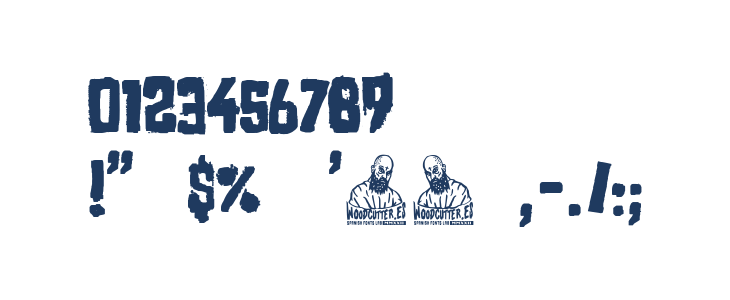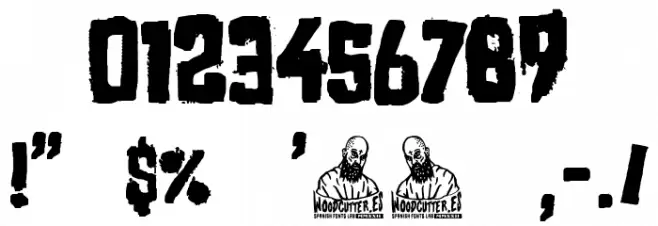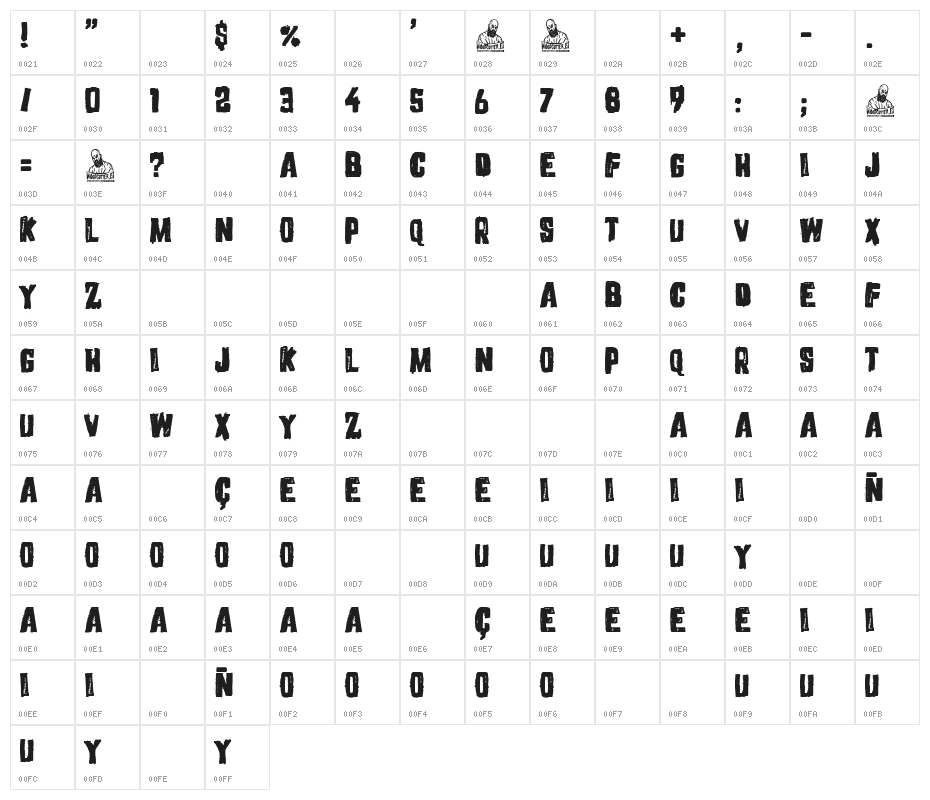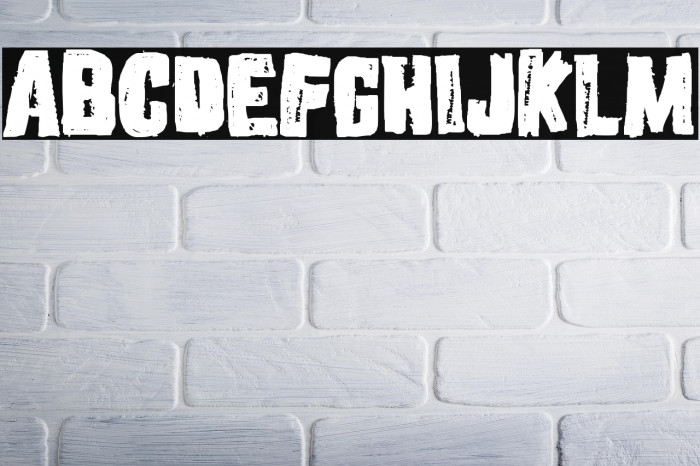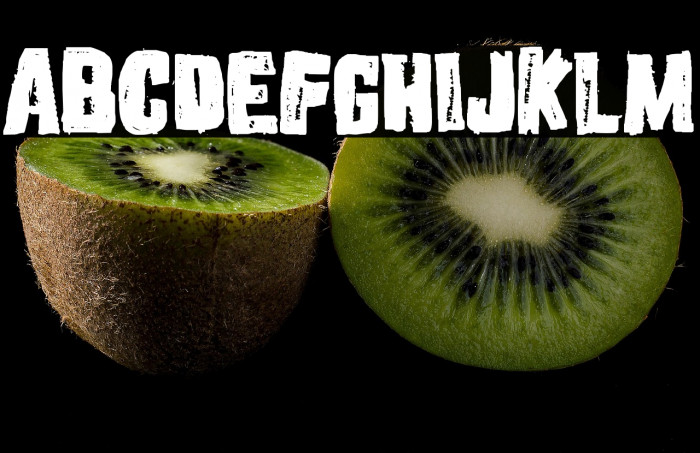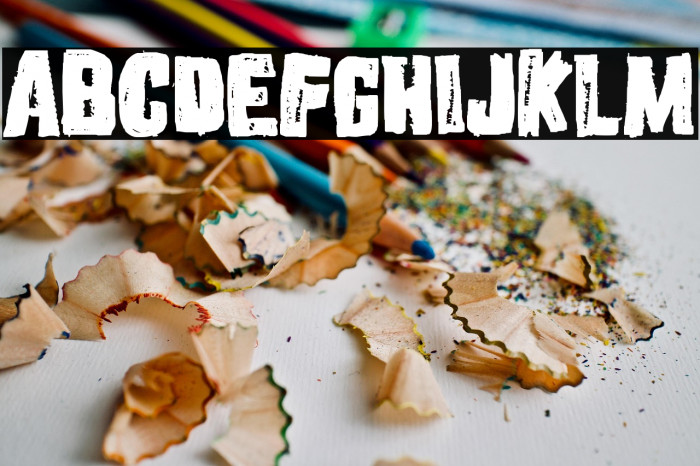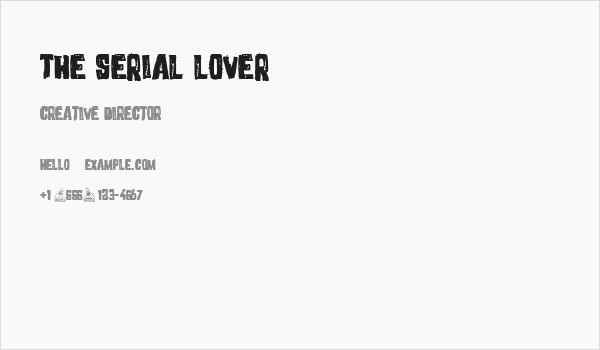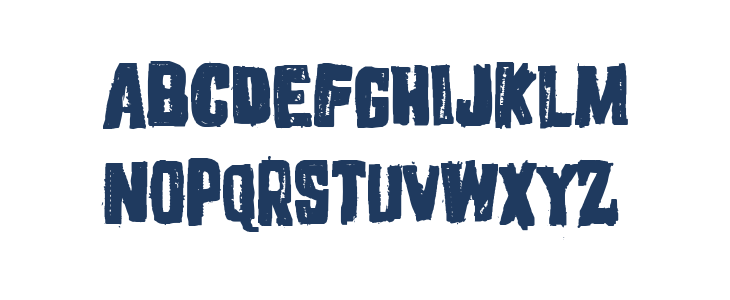
The Serial Lover Font
The Serial Lover Description
This font features a bold and rugged style with a distressed texture, giving it a raw and gritty appearance. The characters are thick and blocky, with uneven edges that suggest a hand-crafted or worn look. The uppercase and lowercase letters maintain a consistent weight, while the numbers and special characters follow the same distressed aesthetic. This font's unique style makes it stand out, ideal for projects that require a bold statement or a vintage, industrial feel.
| Overall Style | Vintage, Industrial |
| Proposed Projects | Ideal for posters, album covers, branding for edgy or vintage-themed products, and any design requiring a bold, impactful look. |